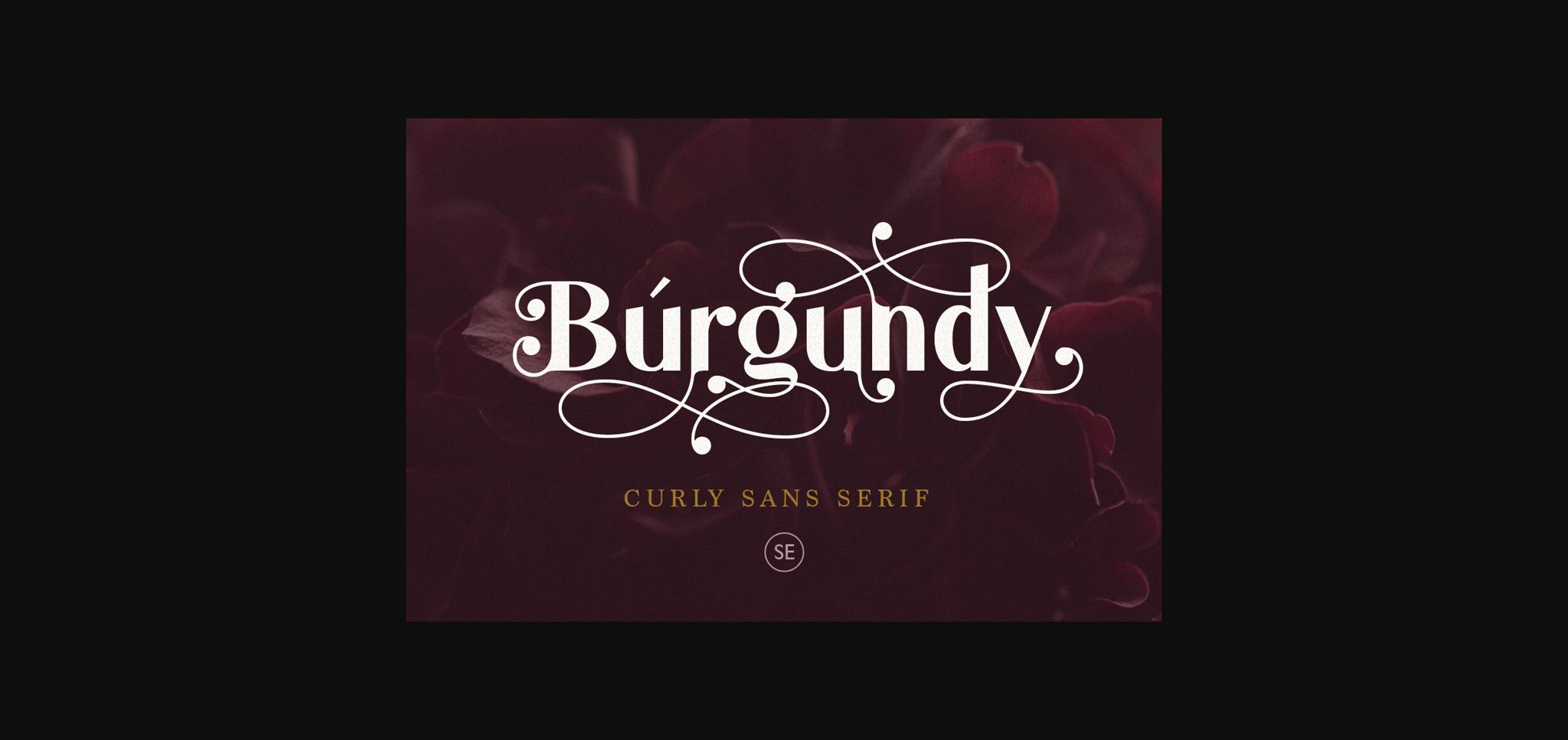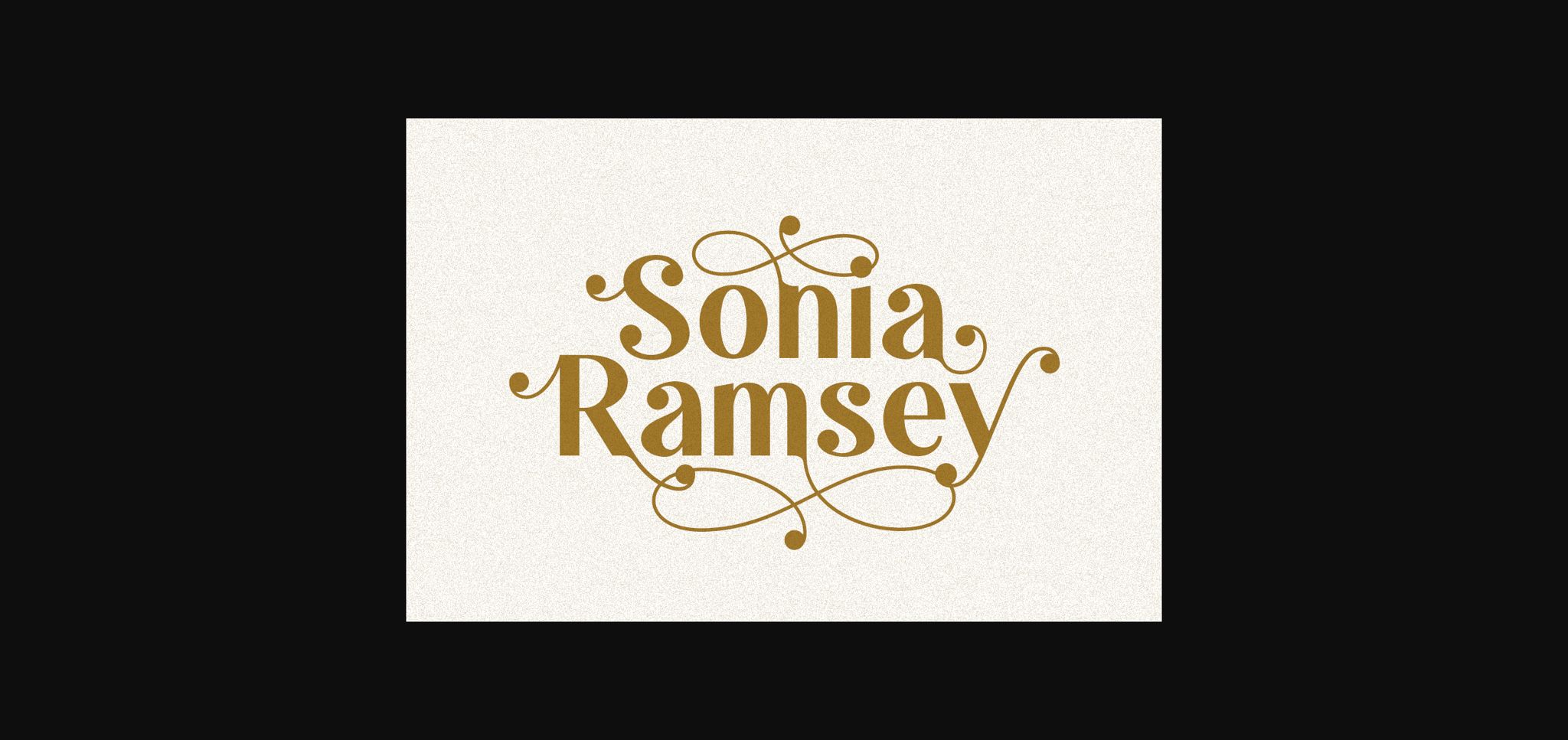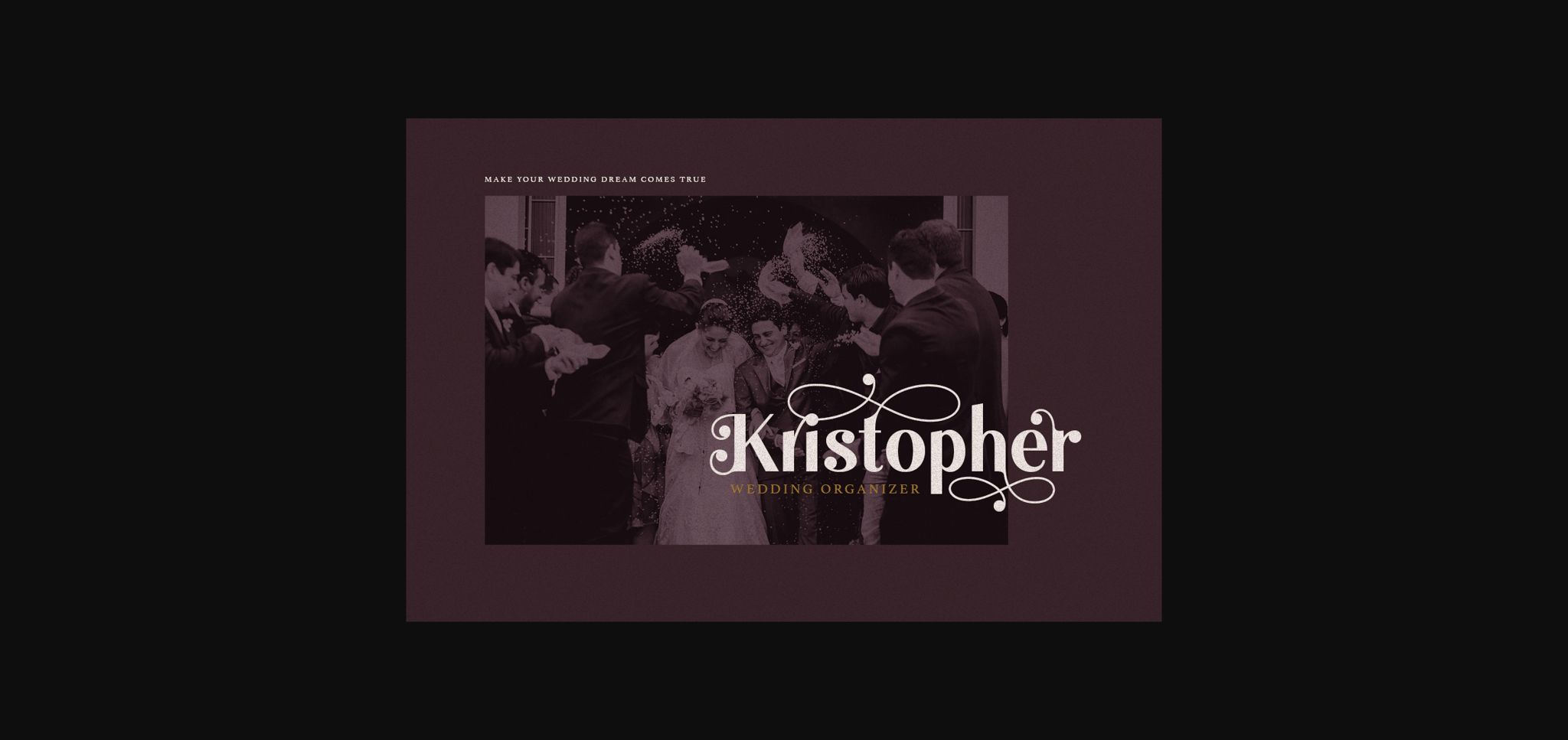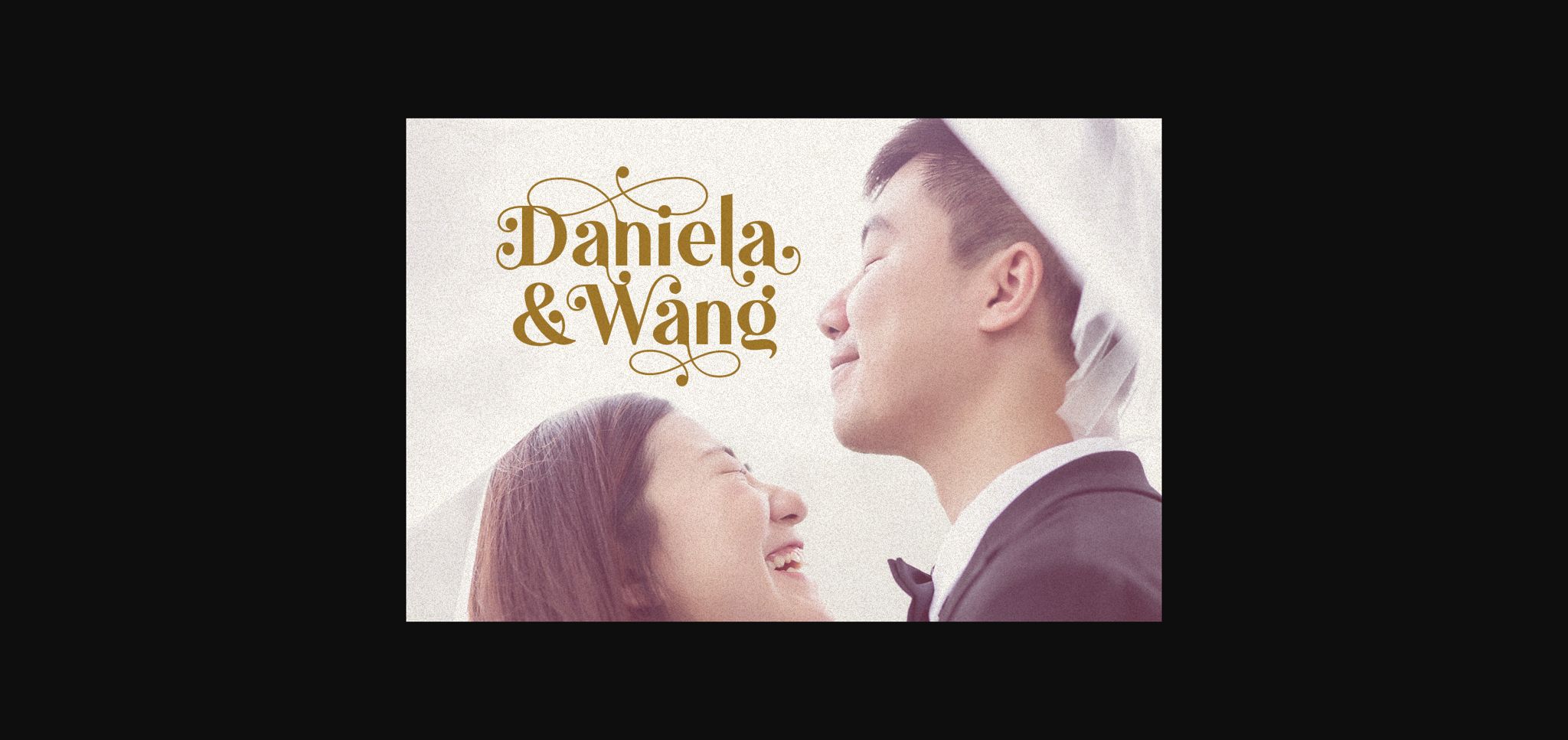
About Burgundy Font
Burgundy is an incredibly elegant and distinct sans serif font. Fall in love with its versatile style and use it to create gorgeous wedding invitations, beautiful stationary art, eye-catching social media posts, and much more!